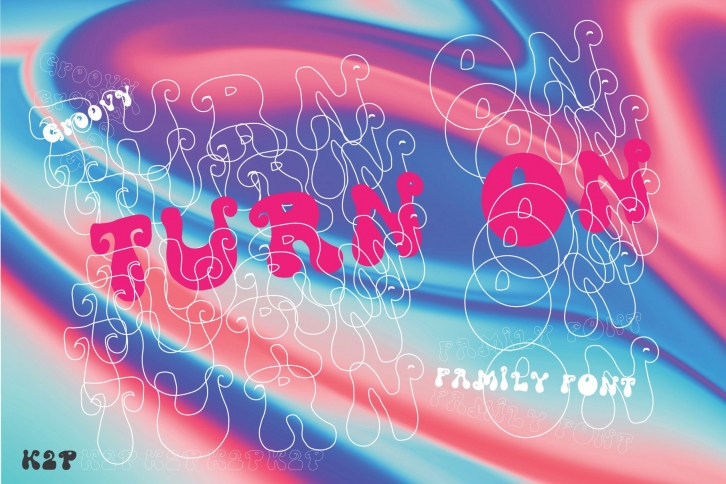
Groovy Turn On is a fun, retro, and whimsical display font. Fall in love with its incredibly distinct and timeless style and use it to create spectacular designs!